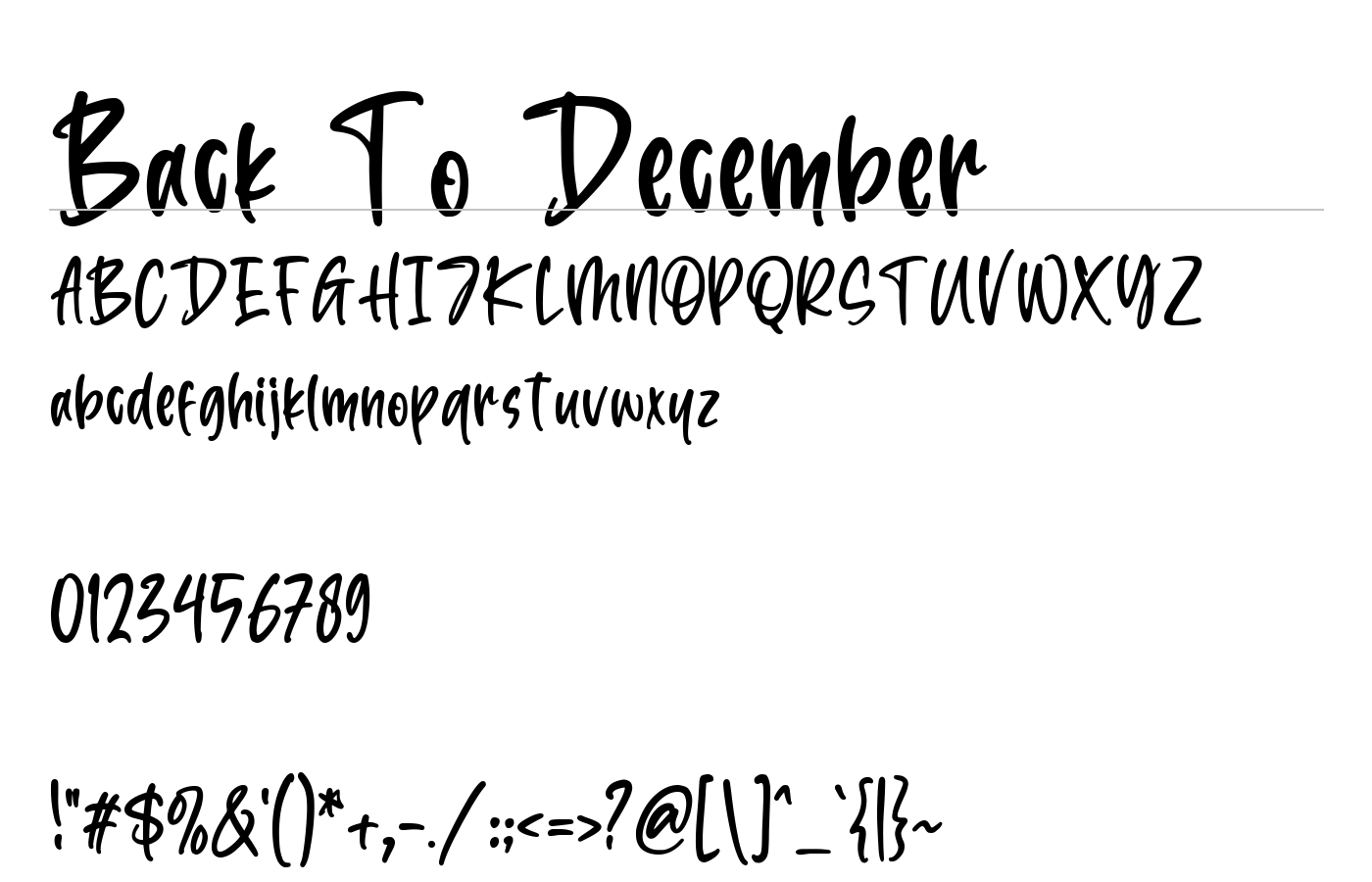
Back To December is a playful and casual handwritten script font featuring a lively, brush-like stroke with moderate weight and a slightly condensed width. Its informal letterforms, including single-story ‘a’ and ‘g’, create a friendly and approachable feel, making it perfect for personal projects, creative branding, or social media designs that seek warmth and personality. This font shines in headlines, invitations, and packaging that aim to convey a relaxed yet stylish mood.
Back To December Font
About Back To December Font
| Font family | Back To December Font |
| Designer | Lia Ari Wijayanti |